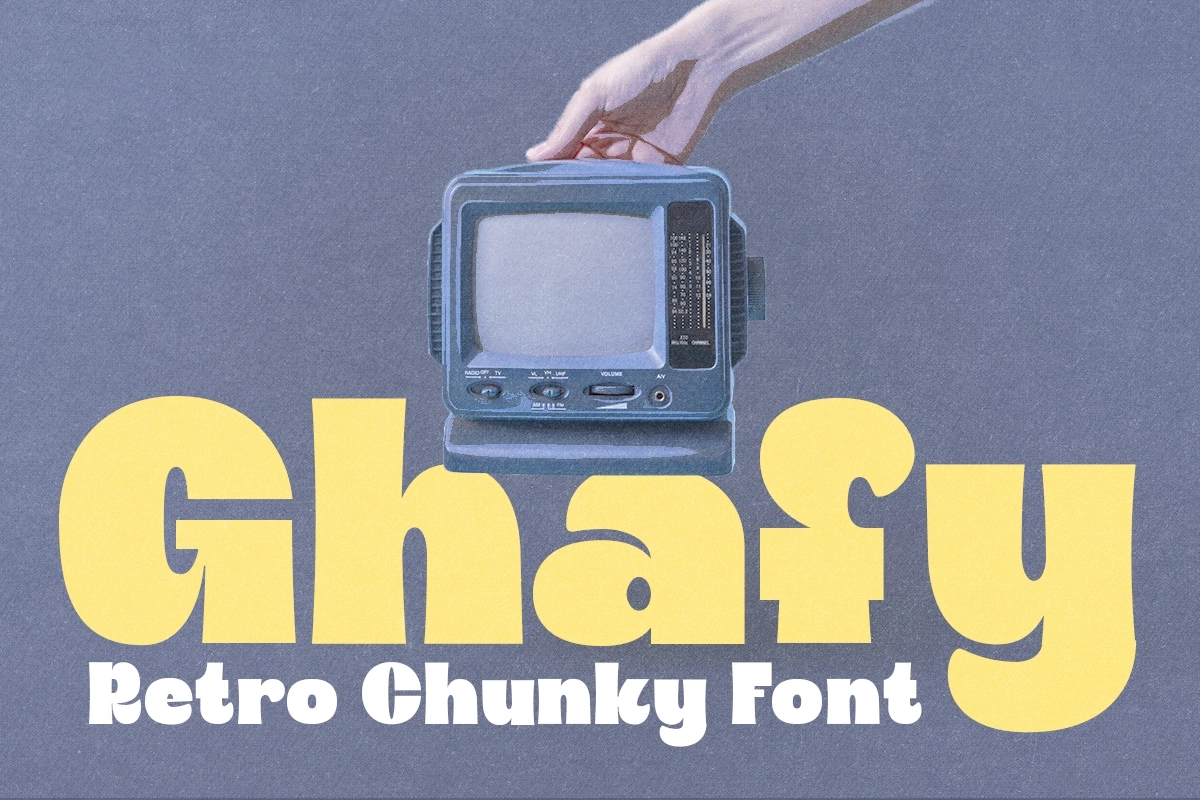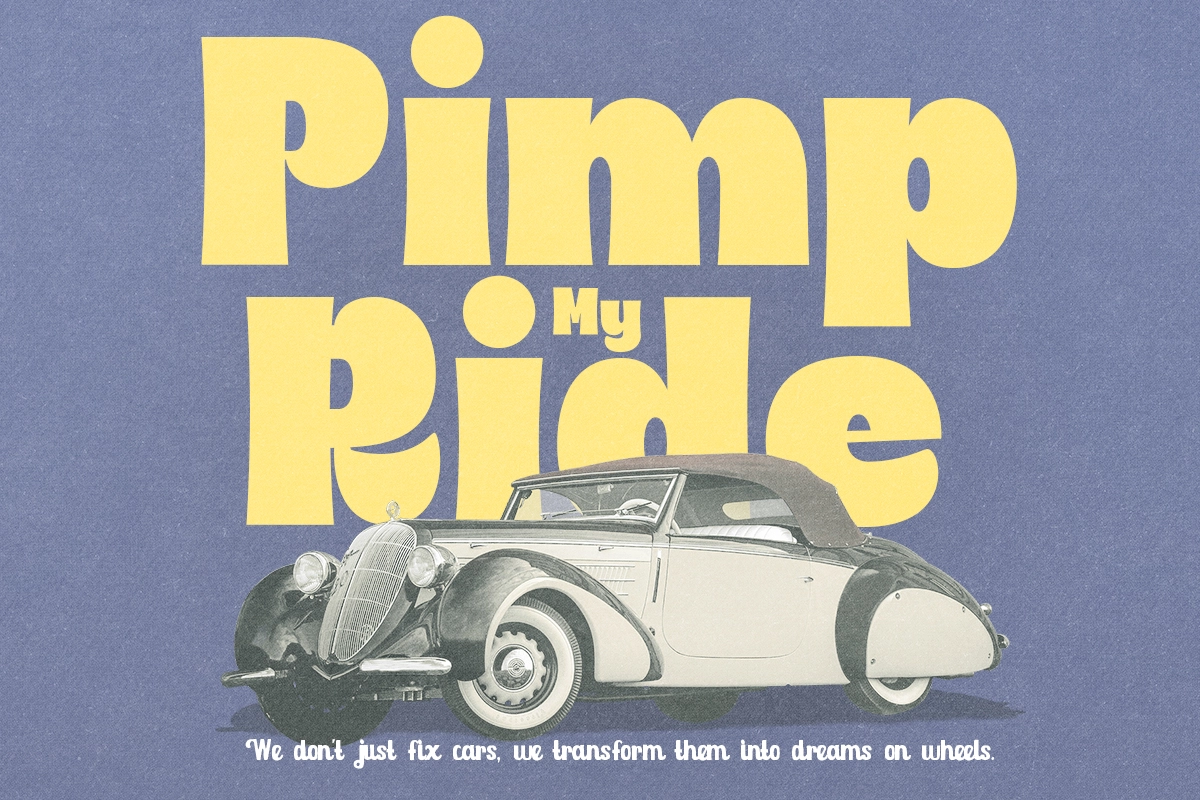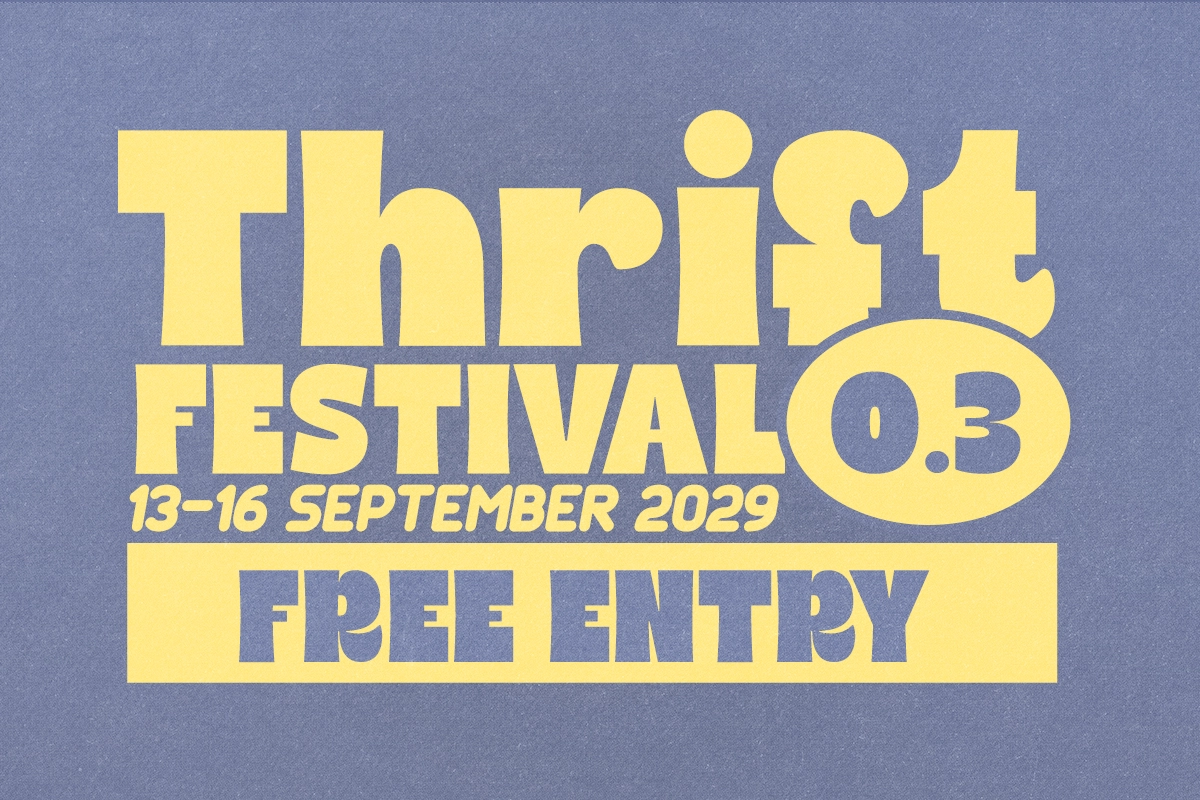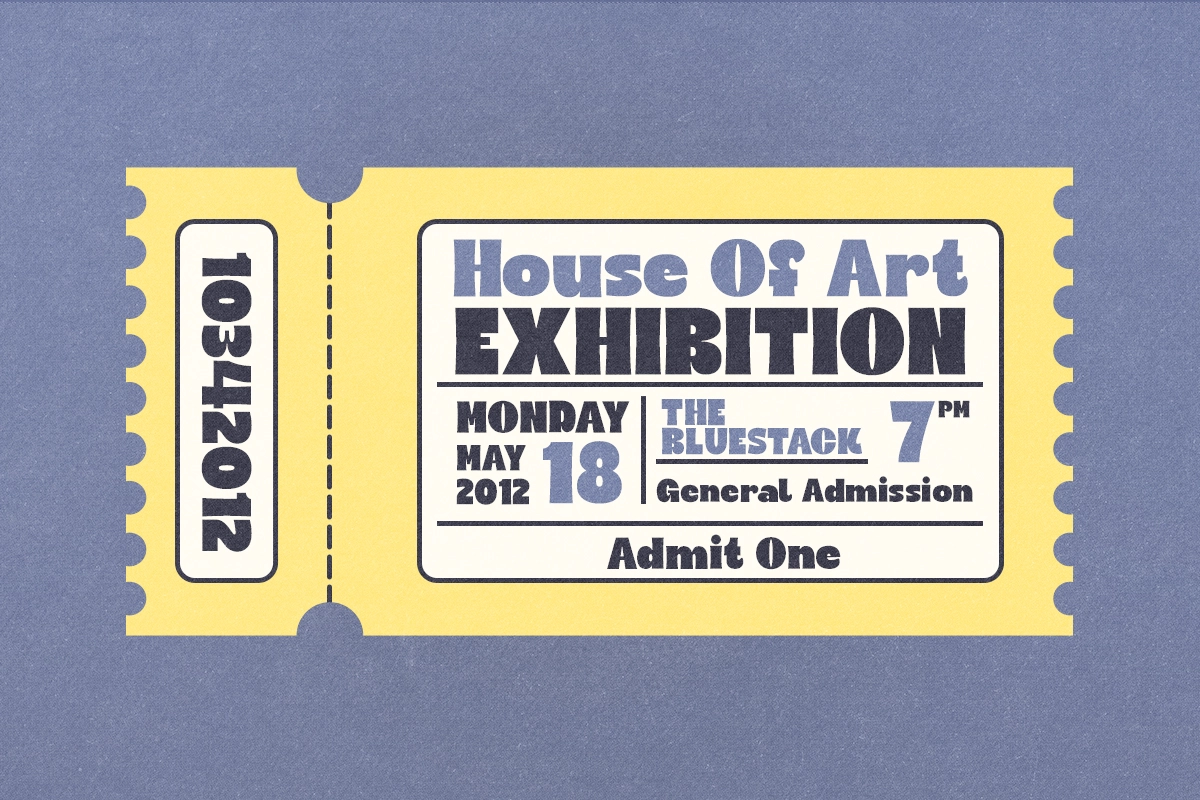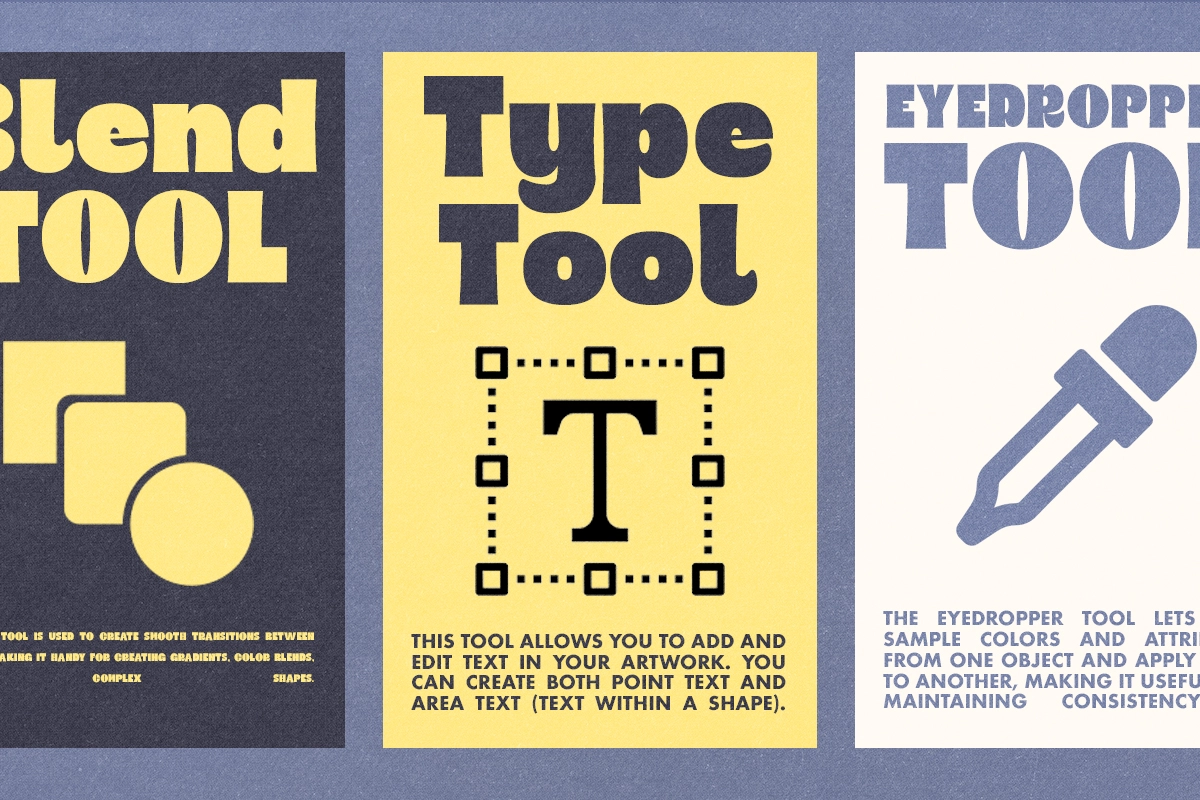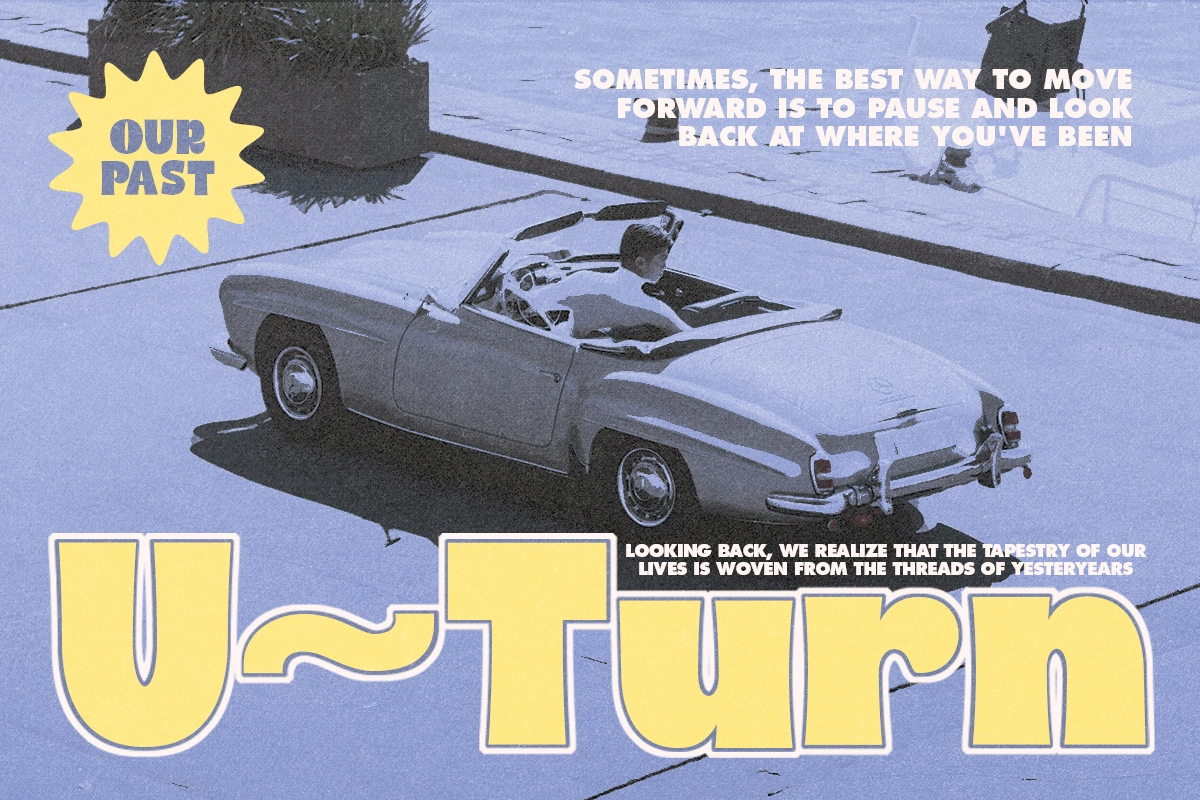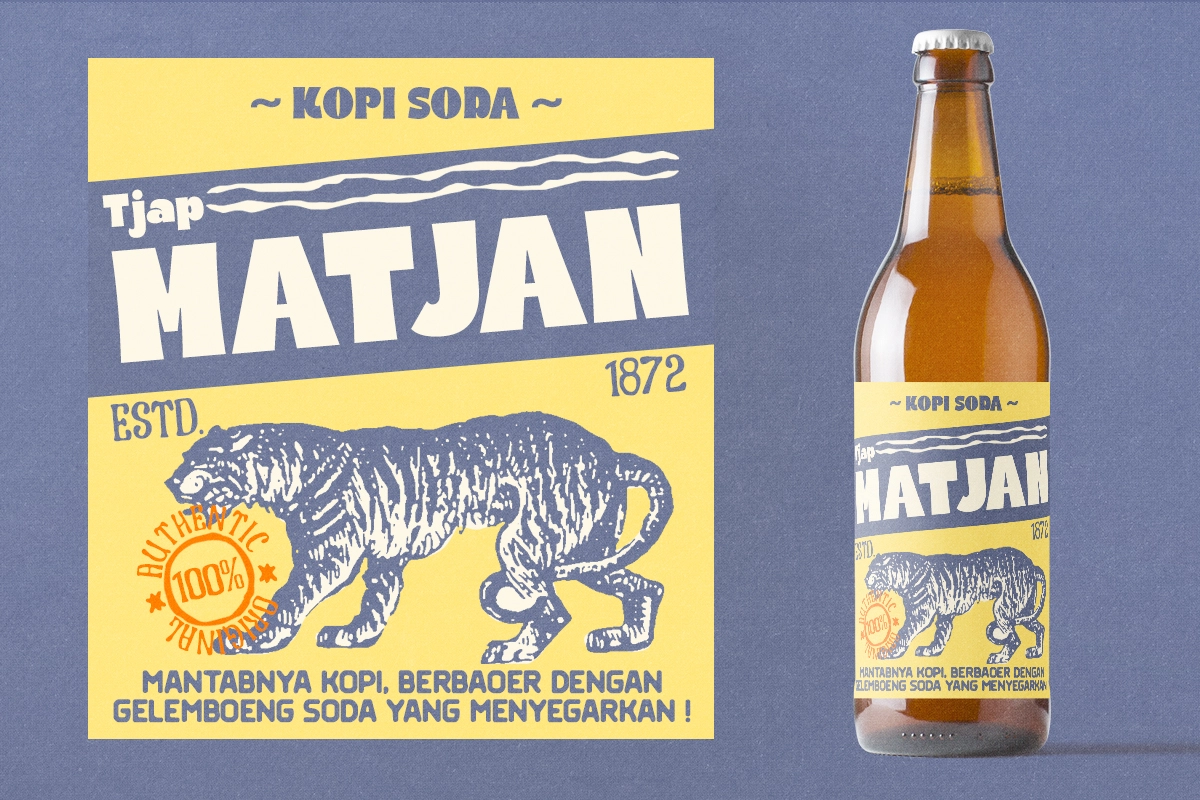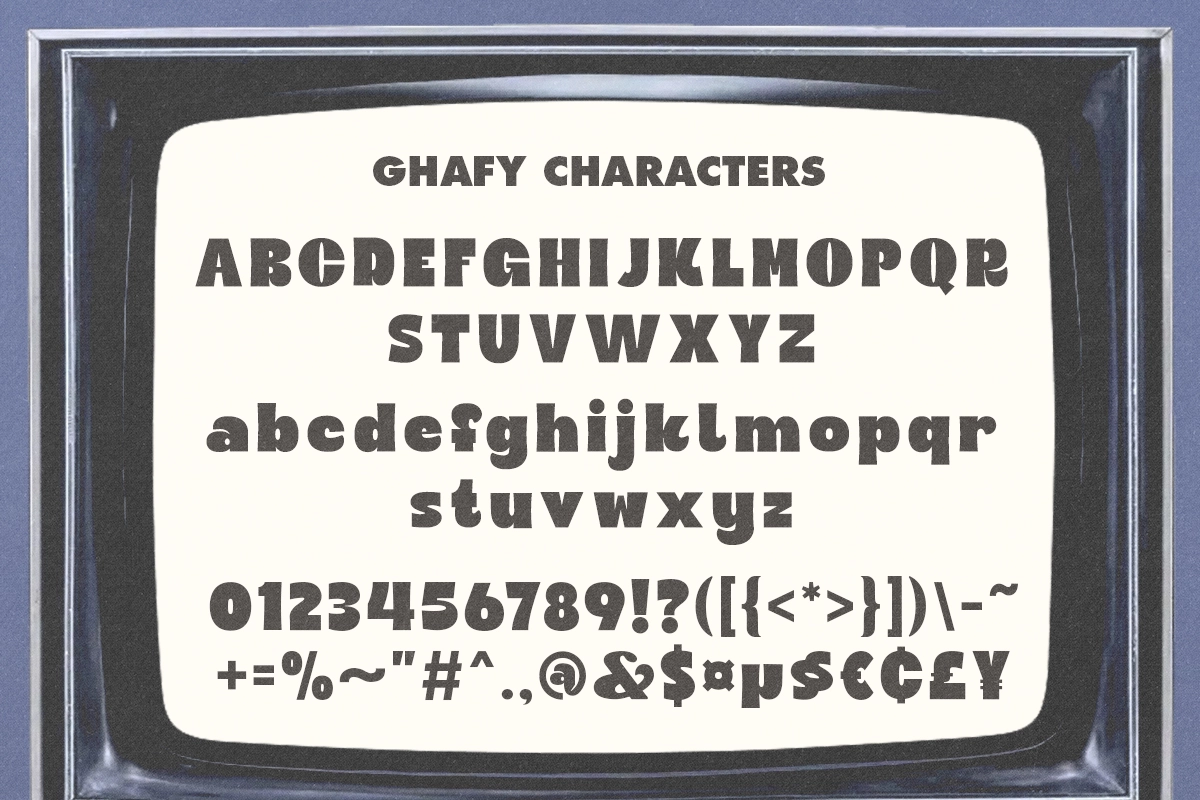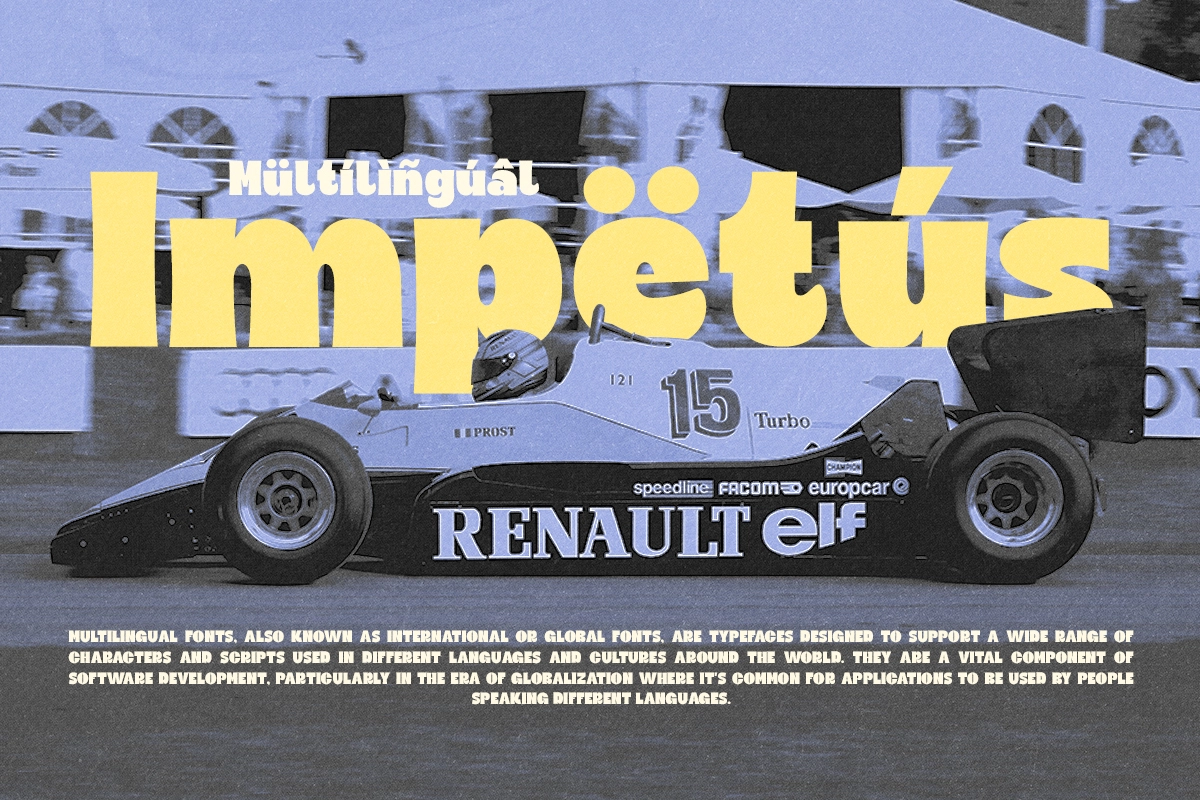
Ghafy - Retro Chunky Font
Ghafy
Ghafy pulls straight from 70s magazine spreads, with thick slab-like strokes, bulging round bowls, and flared serifs that give this retro display font a groovy, lived-in weight. The letterforms sit heavy and confident on the page, closer to a vintage record sleeve than a clean modern typeface, and the alternates and ligatures add small irregularities that keep the set from feeling stamped out.
Ghafy holds up best at large sizes, where its chunky curves can dominate a layout. Use it for vintage logos, festival posters, album art, retro packaging, magazine mastheads, apparel graphics, signage, and nostalgia-driven branding.